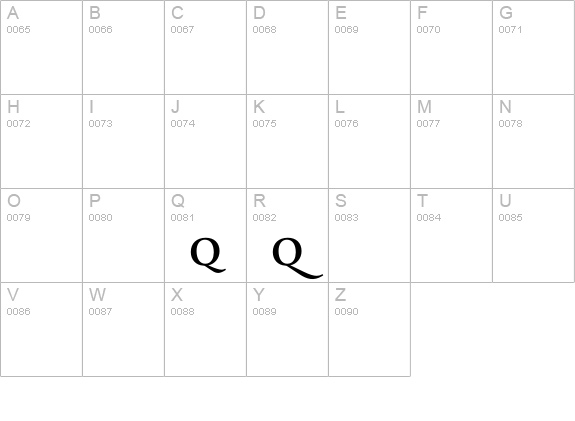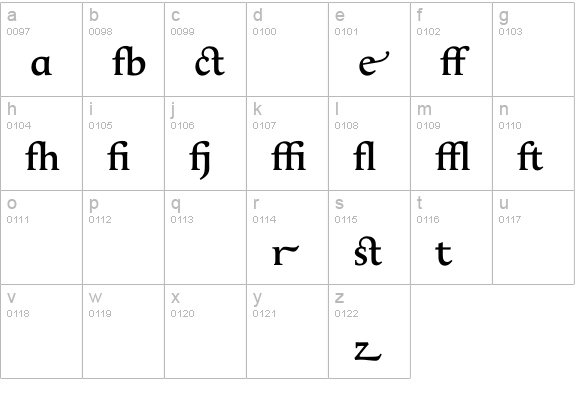
ApollineAlternate-SemiBold Font Details
ApollineAlternate-SemiBold is a sub-bold, structured variant in the ApollineAlternate typeface family \xE2\x80\x94 well suited to sub-headlines and emphasised passages.
ApollineAlternate-SemiBold font is a versatile and modern typeface that exudes confidence and sophistication. Its bold and distinctive design makes it perfect for a wide range of design projects, from branding to editorial work. The clean lines and sharp edges of ApollineAlternate-SemiBold give it a contemporary look that is both striking and easy to read. What sets ApollineAlternate-SemiBold apart is its unique combination of elegance and strength, making it a standout choice for designers looking to make a bold statement. Whether used for headlines, logos, or body text, this font is sure to leave a lasting impression on any project. The best part? ApollineAlternate-SemiBold is available for free download at FontsMarket.com. So why wait? Elevate your design projects with this stunning typeface today!